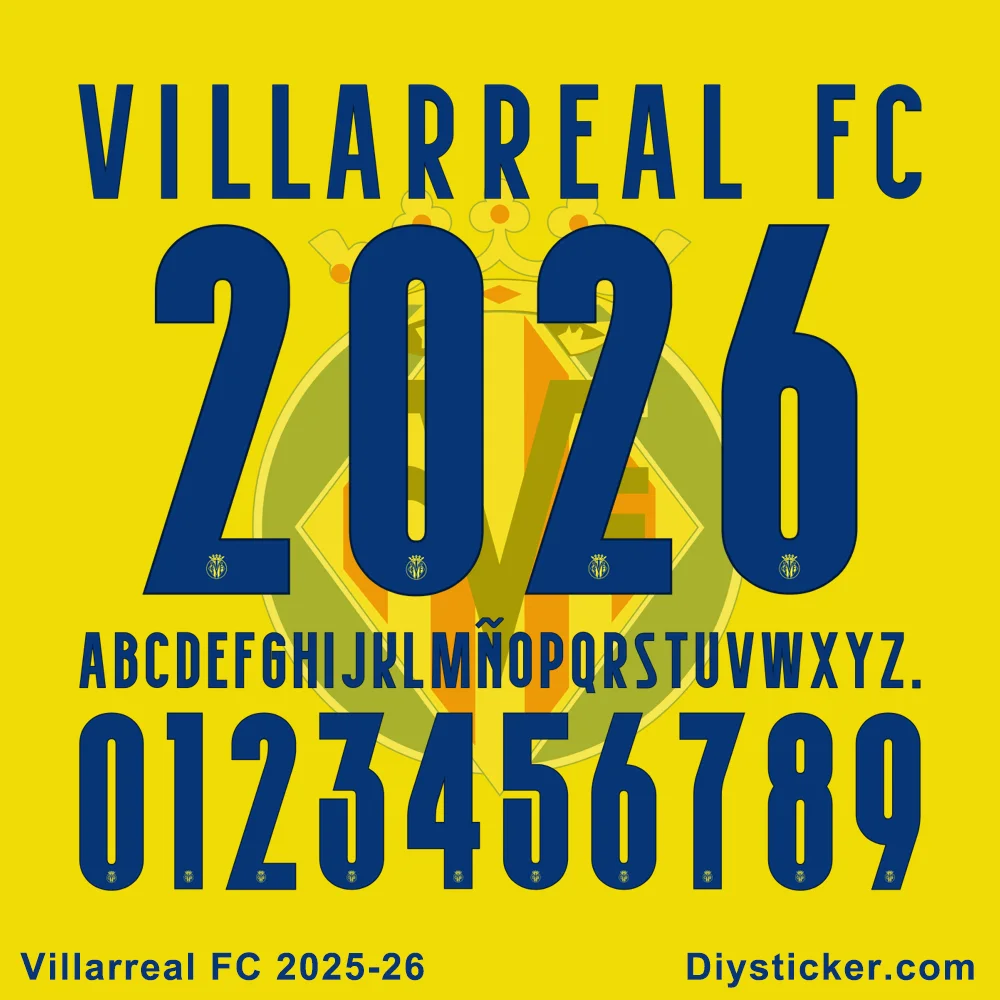
Bring the energy of the Yellow Submarine to your projects with the official Villarreal FC 2025-26 Font. This is the authentic typeface used by the club on its official kits, La Liga graphics, and all communications for the new season, featuring a distinctive stylized season designation.